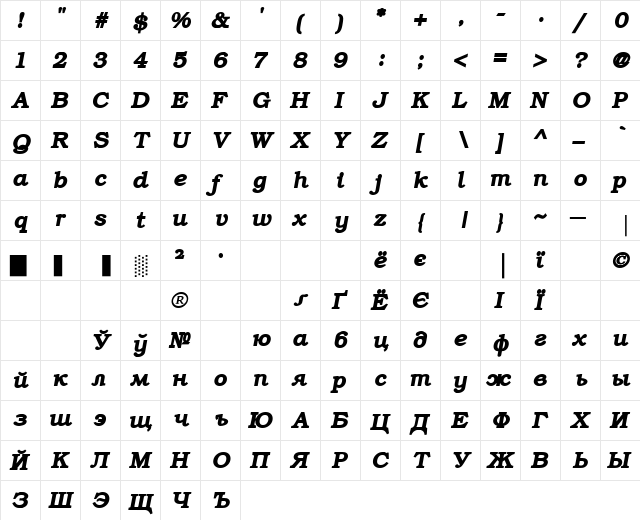
ER Bukinist KOI-8 Bold Italic
Design Context for ER Bukinist KOI-8 Typeface
ER Bukinist KOI-8 is a composed and adaptable typeface that performs quietly and consistently across a wide range of design contexts. The dynamic lean of this cut emphasises speed and emphasis in any layout. Its bold stroke weight gives it real presence on the page.